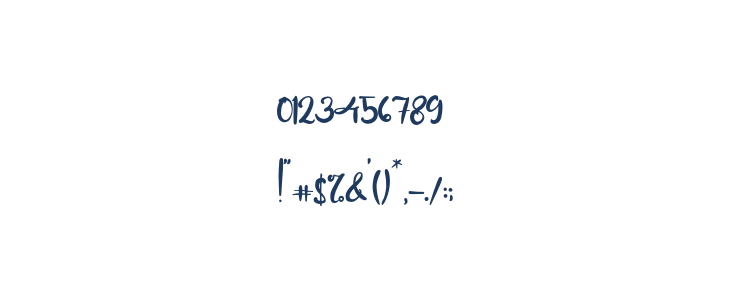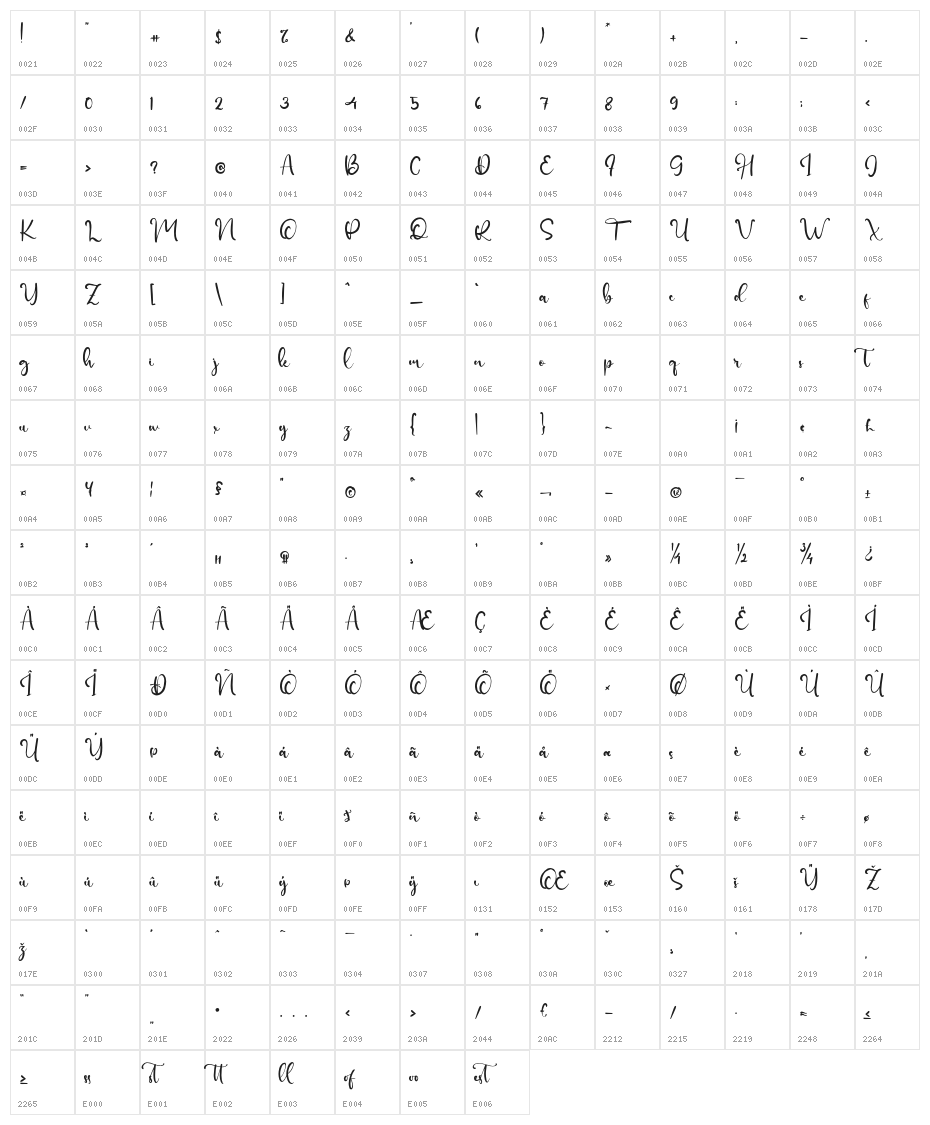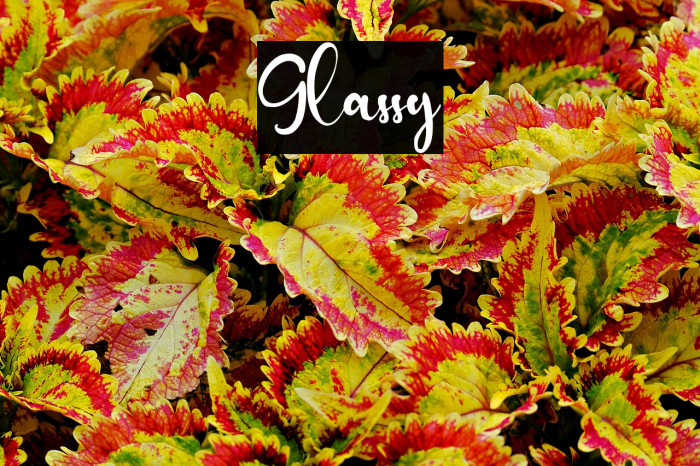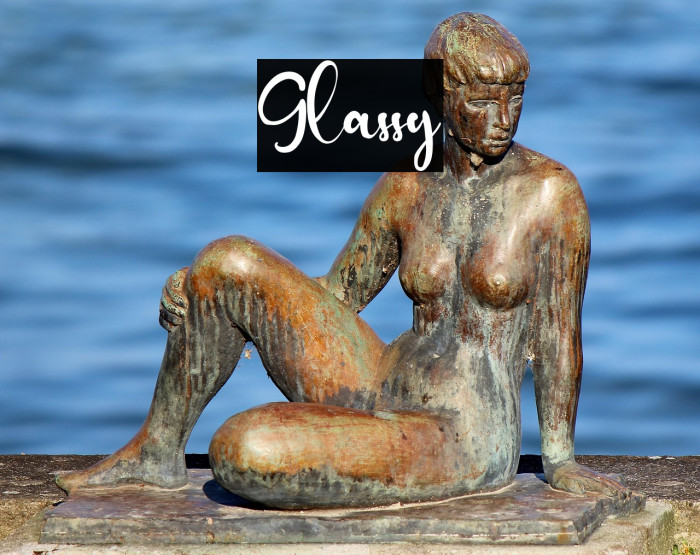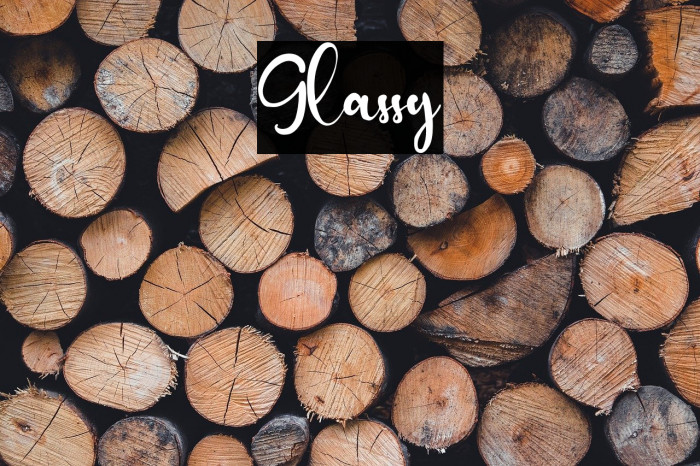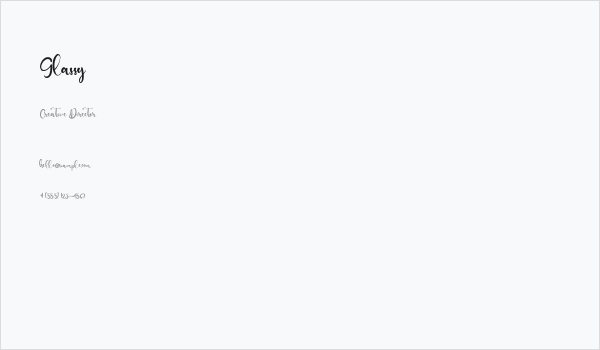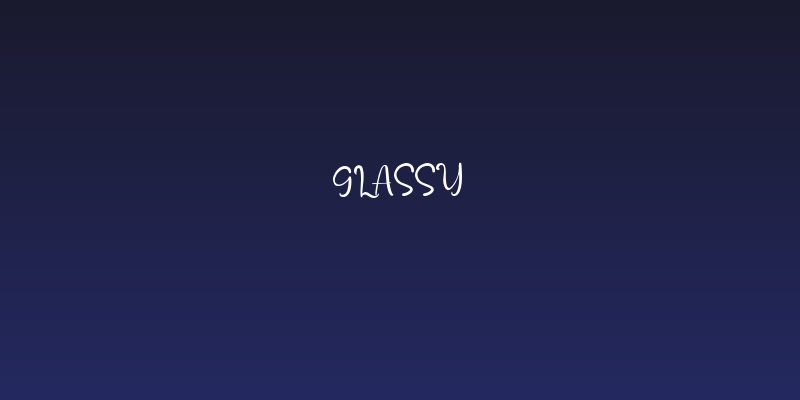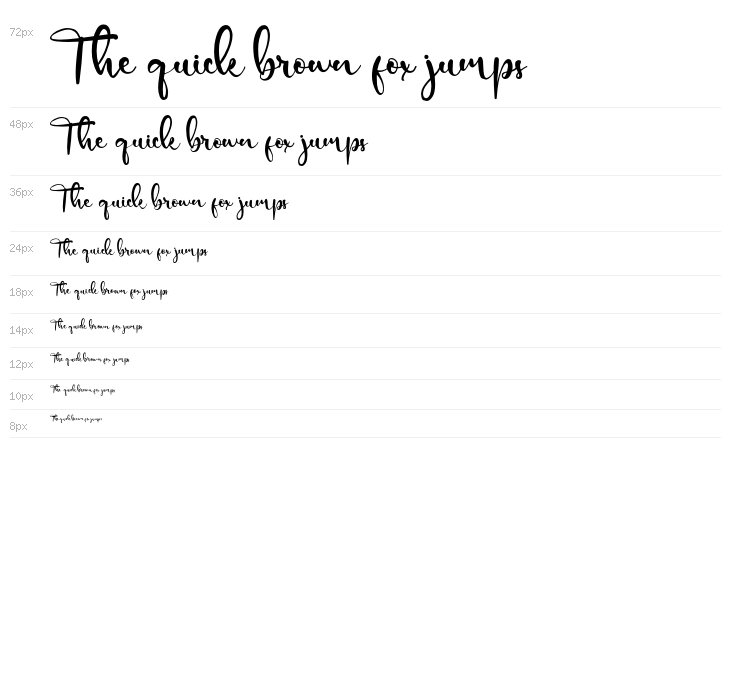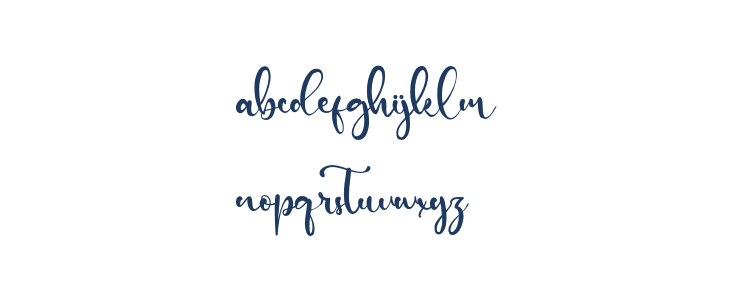
Glassy Font
Glassy Description
This elegant script font features a flowing, cursive style with smooth, rounded edges and a graceful, handwritten appearance. The uppercase letters are bold and expressive, while the lowercase characters maintain a consistent fluidity, creating a harmonious balance. The numerals and special characters are crafted with the same attention to detail, ensuring a cohesive look across all elements. The font's overall aesthetic is both sophisticated and approachable, making it suitable for a variety of design applications.
| Overall Style | Elegant, Handwritten |
| Proposed Projects | Ideal for wedding invitations, greeting cards, branding projects, and elegant logo designs. |